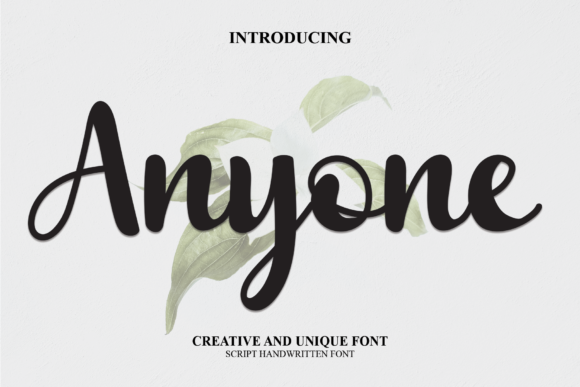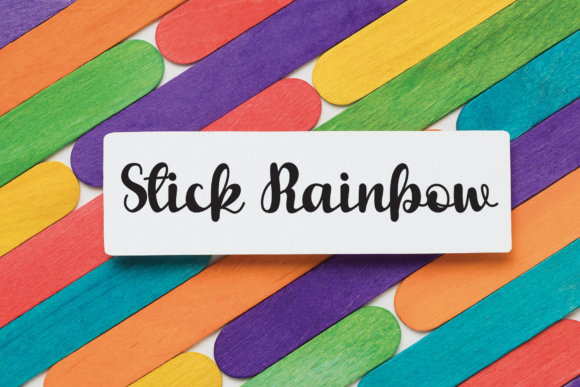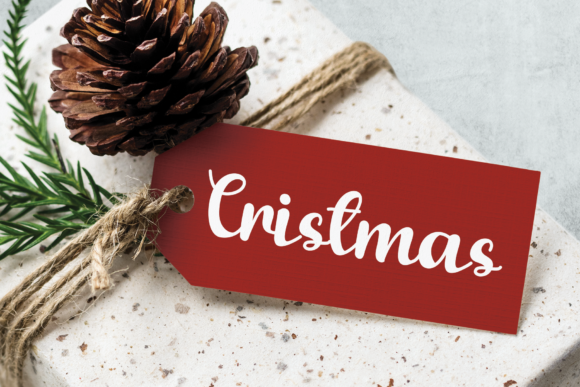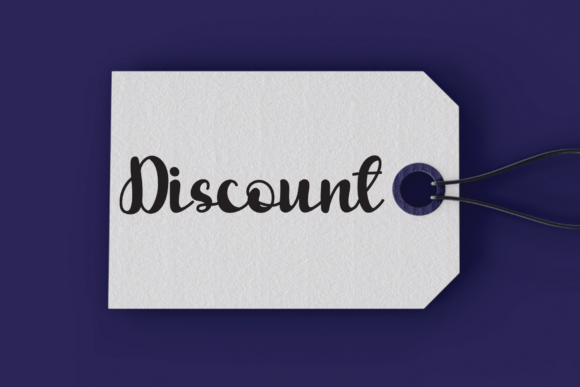
Anyone Font
About Anyone Font
Anyone font presents itself as an elegant script font with a contemporary flair, boasting a perfect balance between form and functionality. With its harmonious proportions and versatile design, this font adds a touch of sophistication to any project it graces, enhancing its overall beauty and visual appeal.
Characterized by its balanced strokes and varied letterforms, Anyone font strikes the perfect balance between elegance and readability. Its contemporary feel imbues designs with a sense of modernity, while its timeless appeal ensures that it remains relevant across various applications and design styles.
The versatility of Anyone font makes it an ideal choice for a wide range of projects, from branding and advertising to invitations, packaging, and beyond. Its refined appearance adds a touch of sophistication to logos, headlines, and promotional materials, helping brands stand out and make a memorable impression on their audience.
With its moderate weight—not too thin and not too bold—Anyone font offers a balanced and versatile option for designers seeking to elevate their projects. Its perfect form and varied design elements ensure that it complements a variety of design aesthetics, from minimalistic and sleek to bold and expressive.
Whether used for digital or print applications, Anyone font enhances the beauty of any project it graces. Its elegant script style brings a sense of refinement and professionalism to designs, making it a valuable asset for designers looking to create visually stunning and impactful compositions.
Overall, Anyone font is a versatile and elegant typeface that adds a touch of sophistication to any design project. With its contemporary feel, perfect form, and balanced weight, it offers endless opportunities for creativity and expression, ensuring that every project stands out and leaves a lasting impression on viewers.